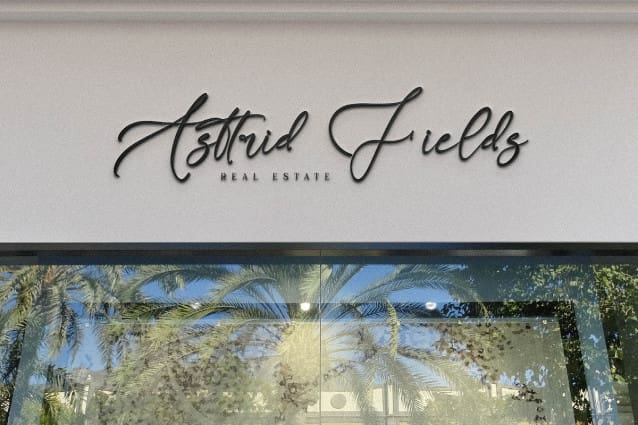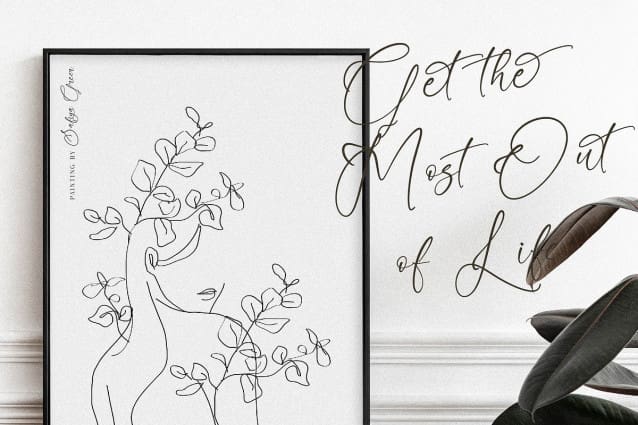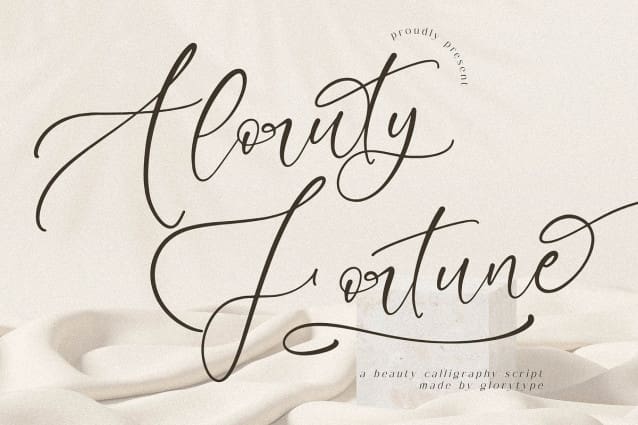
Aloruty Fortune Font
Aloruty Fortune Font – Beauty Calligraphy Script , from Glorytype Studio, suitable for any projects such as: logos, branding projects, homeware designs, product packaging, mugs, quotes, posters, shopping bags, t-shirts, book covers, name card, invitation cards, greeting cards, label, photography, watermark, special events, and all your other lovely projects that need a beautiful script taste.